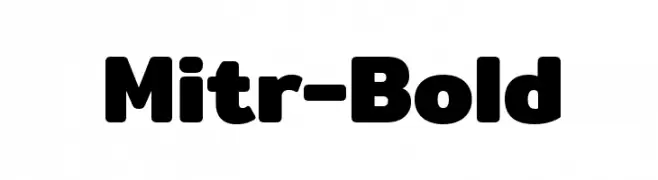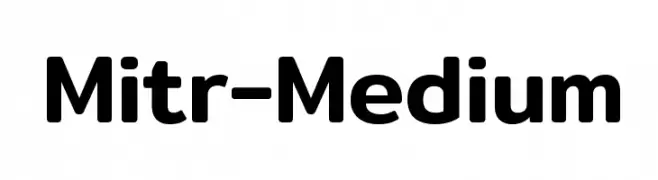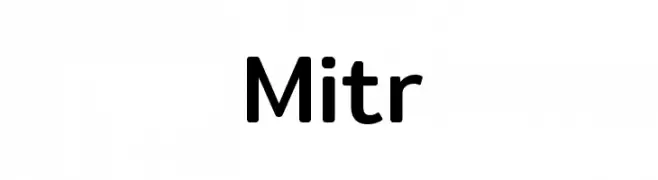
A clean, geometric sans-serif font with excellent readability.
A modern, rounded sans-serif font with a clean and approachable style.
A modern sans-serif font with rounded edges and uniform strokes.
A bold, rounded font with a modern and friendly style.
A modern, geometric sans-serif font with clean lines and balanced spacing.
A modern, geometric sans-serif font with a clean and balanced design.
A modern, semi-bold sans-serif font with rounded edges and excellent readability.